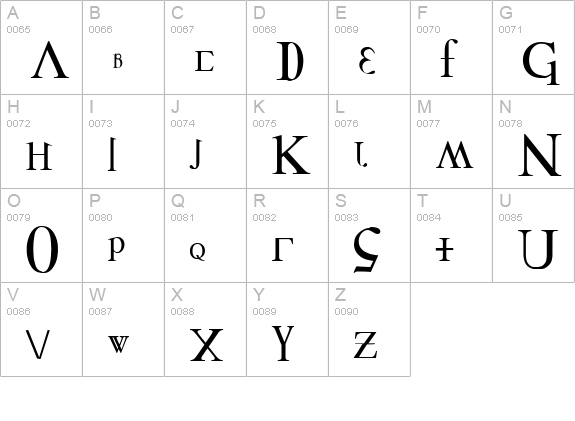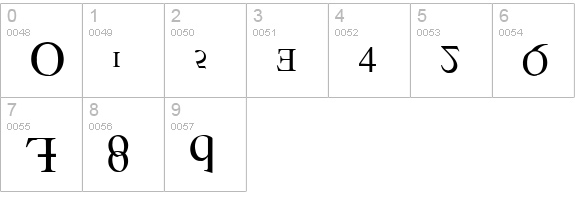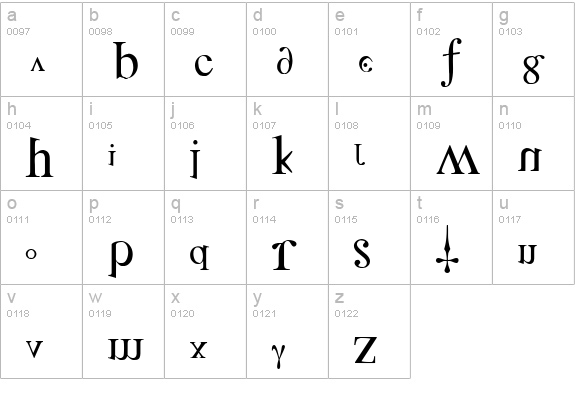
Distorted Faith Font Details
Distorted Faith font is a captivating and edgy typeface that exudes a sense of mystery and intrigue. With its distorted and unique letterforms, this font is perfect for adding a touch of unconventional style to your designs. Whether you're creating posters, album covers, or logos, Distorted Faith font will make your text stand out and grab attention. The best part about Distorted Faith font is that it is completely free to download at FontsMarket.com. This means you can easily access this one-of-a-kind font and use it in your projects without any cost. Don't miss out on the opportunity to enhance your designs with the bold and distinctive look of Distorted Faith font. Download it today and let your creativity soar!